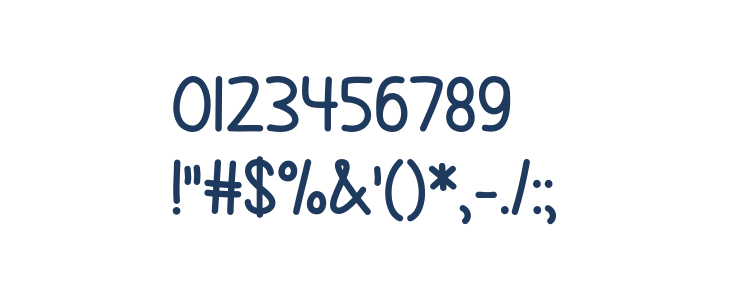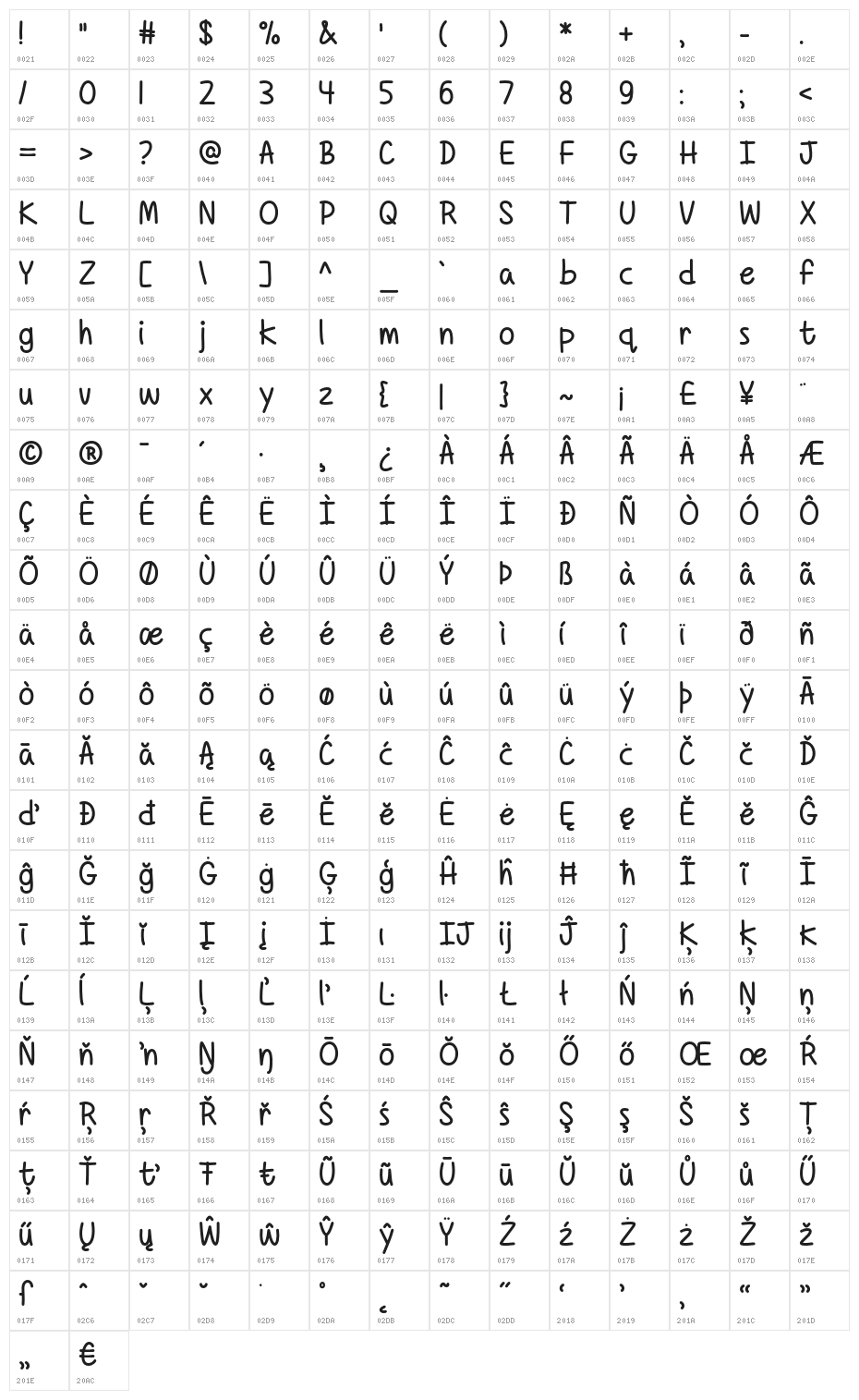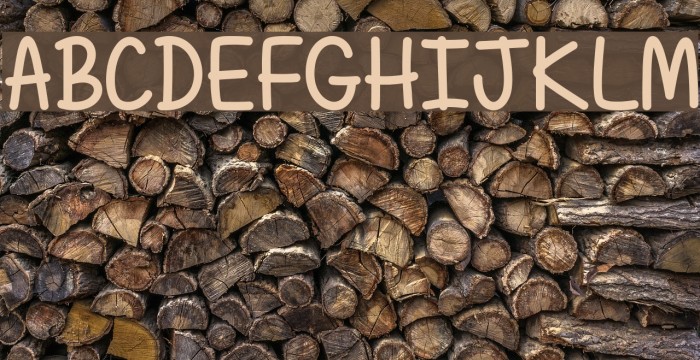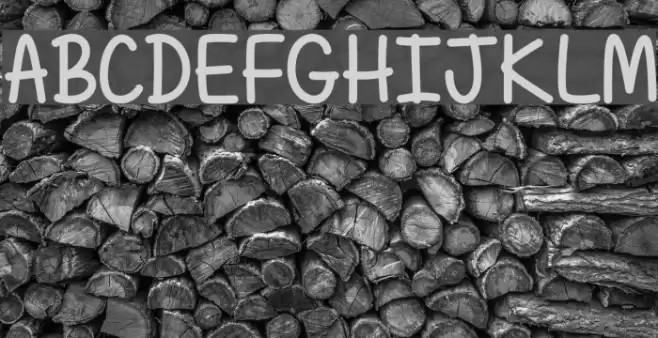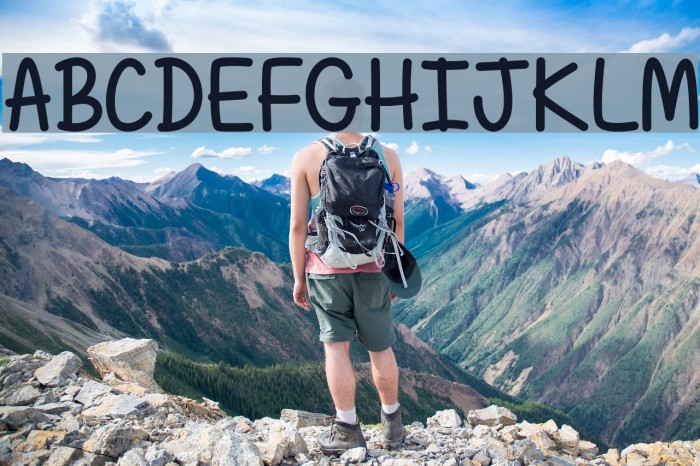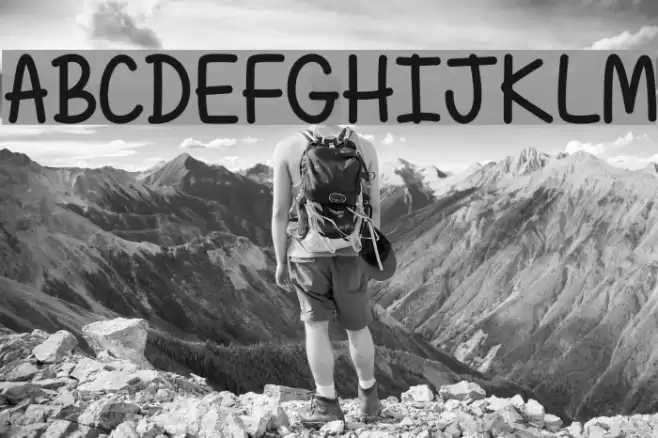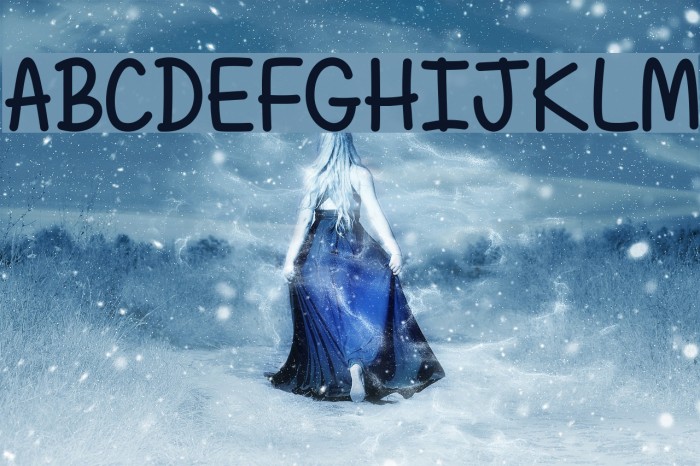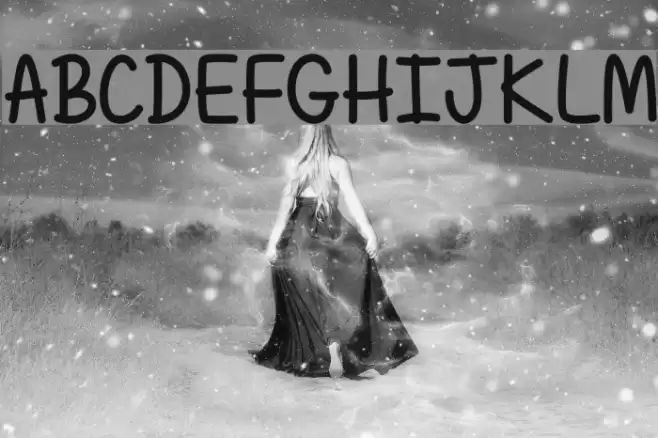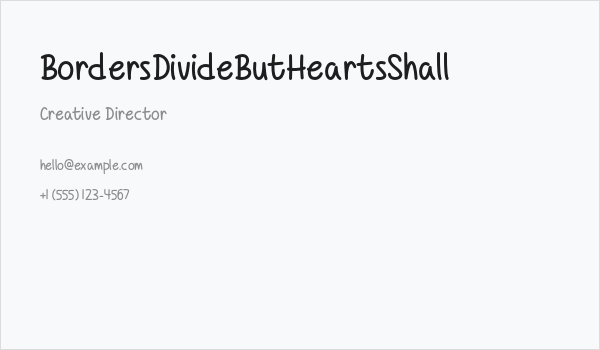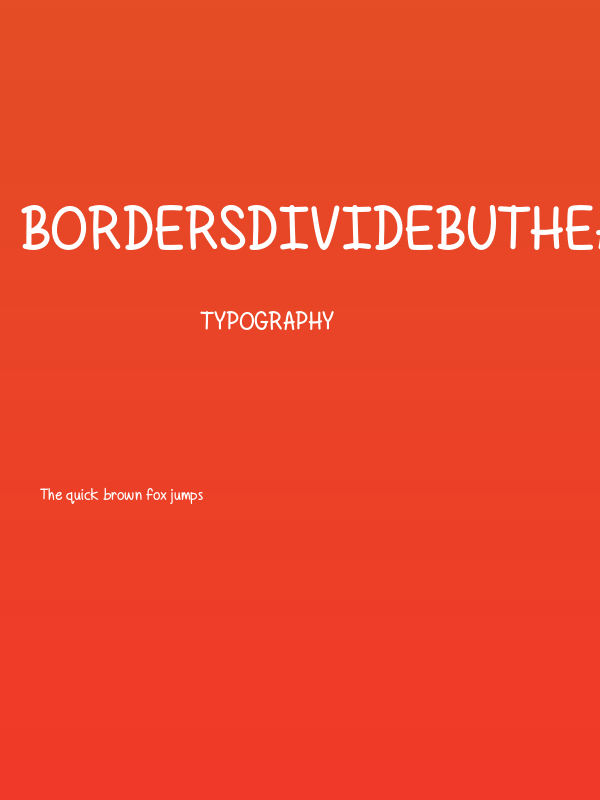
BordersDivideButHeartsShall Font
BordersDivideButHeartsShall Description
This font features a playful and informal handwritten style, characterized by rounded edges and a consistent stroke width that gives it a friendly and approachable appearance. The letters are slightly irregular, adding to the casual and relaxed feel. The uppercase and lowercase letters maintain a uniform height, which contributes to its readability. The numbers and special characters are designed with the same playful aesthetic, making them blend seamlessly with the alphabet. This font is perfect for projects that require a personal touch or a fun, lighthearted vibe.
| Use Case | Headlines, Informal text, Branding |
| Proposed Projects | Ideal for children's books, greeting cards, casual invitations, and playful branding. |